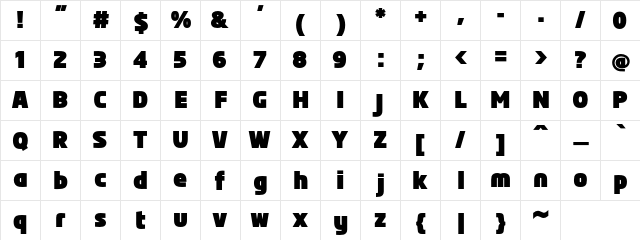
FatBoy Ultra
Design Context for FatBoy Typeface
FatBoy offers clean, dependable letterforms without strong stylistic allegiance, making it a practical choice for designers who need flexibility.
Pro Tip: Use FatBoy in both headline and body roles to test its range before committing to a single application.